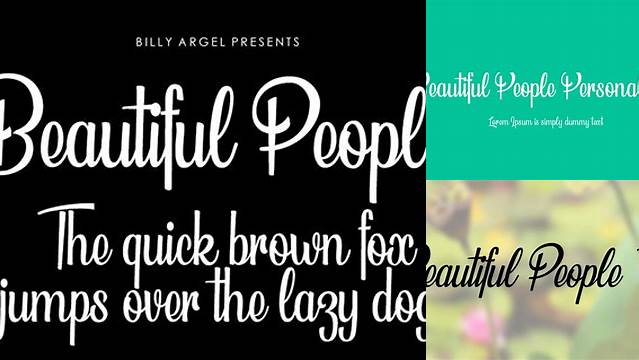
Hey guys! Are you on the hunt for a font that screams elegance and personality? Look no further! The Beautiful People font is here to add that special touch to your projects. And the best part? You can snag it for free for your personal use. Let's dive into what makes this font so awesome and how you can get your hands on it.
1. What is the Beautiful People Font?
The Beautiful People font is a stylish, hand-lettered typeface that brings a unique and personal feel to any design. It's perfect for adding a touch of sophistication and charm to invitations, logos, branding materials, and so much more. What sets it apart is its natural, flowing strokes that mimic authentic handwriting, giving your projects a human touch that's hard to resist. Whether you're working on a wedding invite or a blog header, this font can elevate your design game. The versatility of Beautiful People font also shines through in its ability to blend seamlessly with various design styles, from minimalist to bohemian. You can pair it with serif fonts for a classic look or with sans-serif fonts for a modern twist. The possibilities are truly endless, making it a valuable addition to any designer's toolkit. Free for personal use, it allows you to explore its potential without any financial commitment, encouraging creativity and experimentation in your projects.
2. Key Features of Beautiful People Font
One of the standout features of the Beautiful People font is its elegant and flowing design. The letterforms are crafted with precision, giving each character a unique and artistic flair. The smooth curves and delicate strokes create a sense of sophistication and charm, making it a perfect choice for projects that require a touch of class. Another key feature is its versatility. This font works well in a variety of design applications, from logos and branding materials to invitations and social media graphics. Its adaptability allows you to use it in both print and digital formats, ensuring a consistent and polished look across all your platforms. The Beautiful People font includes a full set of uppercase and lowercase letters, numbers, and punctuation marks, giving you all the tools you need to create stunning designs. It also supports multiple languages, making it a great option for international projects. With its extensive character set and language support, you can communicate your message effectively to a global audience. Furthermore, the font is designed to be highly legible, ensuring that your text is easy to read even at smaller sizes. This is particularly important for body text and captions, where clarity is essential. The font’s readability, combined with its aesthetic appeal, makes it a winning combination for any design project.
5. Design Ideas: Projects Perfect for Beautiful People Font
Alright, let's brainstorm some awesome projects where the Beautiful People font can really shine. For starters, wedding invitations! Imagine using this elegant font to announce your big day with a touch of sophistication and romance. It's perfect for creating a memorable first impression. Another great idea is branding. If you're launching a new business or rebranding an existing one, the Beautiful People font can help you create a unique and stylish visual identity. It's especially well-suited for businesses in the beauty, fashion, or lifestyle industries. Social media graphics are another fantastic application. Use the font to create eye-catching posts, stories, and ads that grab your audience's attention. Whether you're promoting a product, sharing a quote, or announcing an event, this font will make your content stand out. And let's not forget about personalized gifts! Imagine creating a custom mug, tote bag, or piece of art with a loved one's name or a special message in this beautiful font. It's a thoughtful and unique way to show someone you care. Finally, consider using the font for blog headers or website titles. It can add a touch of personality and sophistication to your online presence, making your website more engaging and memorable. With its versatility and charm, the Beautiful People font is sure to elevate any project you use it for.
6. Pairing Beautiful People Font with Other Fonts
To make the Beautiful People font truly pop, you've gotta pair it with the right complementary fonts. Think of it like finding the perfect sidekick for a superhero! One classic combo is pairing it with a simple sans-serif font like Helvetica or Arial. These fonts provide a clean and modern contrast to the script style of Beautiful People, creating a balanced and harmonious look. Another great option is to pair it with a serif font like Times New Roman or Georgia. This combination creates a more traditional and elegant feel, perfect for projects that require a touch of sophistication. When choosing a pairing font, make sure it doesn't compete with the Beautiful People font. You want the script font to be the star of the show, with the other font playing a supporting role. Pay attention to the font weights and sizes as well. A heavier weight sans-serif or serif font can help balance the delicate strokes of Beautiful People. Experiment with different combinations until you find a pairing that feels just right. Online tools like FontPair can also help you discover font pairings that work well together. Remember, the goal is to create a cohesive and visually appealing design that effectively communicates your message. The Beautiful People font, when paired correctly, can elevate your design to the next level.
7. Beautiful People Font Alternatives
If you're looking for fonts similar to Beautiful People font, there are plenty of alternatives that offer a similar aesthetic. One popular option is Samantha Script, a beautiful and elegant script font that's perfect for wedding invitations and branding. Another great alternative is Adelina Script, which features a modern and stylish design with flowing curves and delicate strokes. If you prefer a more casual and playful look, Bromello is a fantastic choice. It has a handwritten feel with a touch of whimsy, making it perfect for social media graphics and personalized gifts. For a more sophisticated and refined option, consider Belinda. This font features a classic script style with elegant swashes and flourishes, making it ideal for high-end branding and formal invitations. And if you're looking for a free alternative, Stylish Calligraphy is a great option. It offers a similar handwritten feel to Beautiful People and is available for personal use. When choosing an alternative, consider the overall tone and style of your project. Each font has its own unique personality, so it's important to select one that aligns with your design goals. The Beautiful People font is a great choice, but exploring these alternatives can help you find the perfect font for your specific needs.
30. Beautiful People Font for Stationery Design
Stationery design is a subtle yet important aspect of branding, as it reflects your company's professionalism and attention to detail. The Beautiful People font can add a touch of elegance and personality to your stationery designs. I mean, stationery is the bedrock of business! When designing stationery with the Beautiful People font, start by choosing a color palette that is consistent with your brand's overall aesthetic. Use high-quality paper stock. The paper stock you choose can make a big difference in the overall look and feel of your stationery. Choose a paper stock that is both durable and visually appealing. The design should reflect your company's unique personality and values, as this helps to develop brand presence. With the Beautiful People font, your stationery is sure to make a positive impression and reinforce your brand's identity.